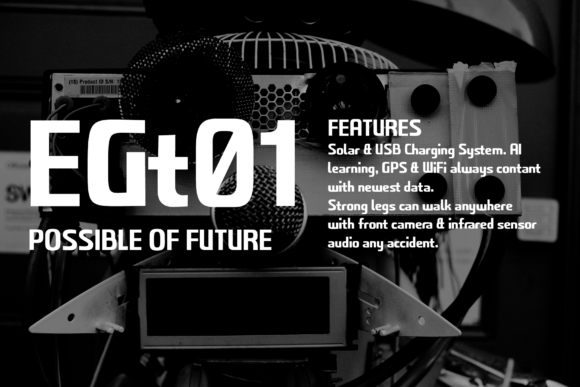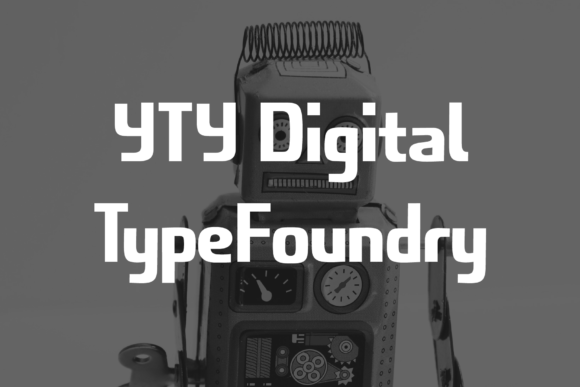
Introducing Erkn Font: A Modern Sans Serif for Diverse Design Needs
In the vast world of typography, finding the perfect font that balances style, versatility, and functionality can be a daunting task. For designers and crafters looking for a typeface that can seamlessly blend into various design projects, Erkn Font emerges as an excellent choice. This article delves into the characteristics, benefits, and potential applications of Erkn Font, highlighting why it has become a go-to for creatives.
What is Erkn Font?
Erkn is a rounded and mechanical sans serif font, designed to cater to a wide range of design needs. Its geometric style not only gives it a modern look but also ensures it can complement both classical and techno themes. This versatility makes Erkn an ideal selection for designers who work on diverse projects, from branding and advertising to digital media and crafting.
Key Features of Erkn Font
- Comprehensive Language Support: Erkn offers support for all characters of the European languages. This extensive language support ensures that designers can use Erkn for projects targeting various linguistic audiences without worrying about character limitations.
- Standard Punctuation and Diacritic Glyphs: The font includes standard punctuation and diacritic glyphs, making it fully equipped for creating professional and polished text content. Whether it’s for a website, a brochure, or a digital application, Erkn provides all the necessary typographic elements.
- OpenType Features: The font features OpenType capabilities, including ligatures and kerning. These features enhance the typographic quality of the text, providing better readability and aesthetic appeal. Ligatures offer a sophisticated way to handle character combinations, while kerning ensures optimal spacing between characters.
Design Applications of Erkn Font
The geometric style of Erkn Font lends itself to a variety of design applications. Its rounded and mechanical sans serif characteristics make it suitable for:
- Branding and Logo Design: The modern and clean look of Erkn makes it an excellent choice for branding and logo design. It can help create a strong and memorable visual identity for businesses and products.
- Digital Media: For websites, apps, and digital platforms, Erkn’s legibility and contemporary style make it an ideal font. It ensures a great user experience across various digital devices.
- Print Media: In print, Erkn can be used for brochures, posters, and magazines, offering a fresh and appealing look. Its versatility means it can suit both traditional and modern design themes.
- Crafting and DIY Projects: For crafters, Erkn can add a professional touch to handmade products, such as labels, cards, and DIY publications. Its easy-to-read style ensures that messages are conveyed clearly.
Why Choose Erkn Font?
Choosing Erkn Font for your design projects comes with several advantages:
- Versatility: Its geometric and sans serif nature makes it adaptable to various design themes and applications.
- Readability: The rounded characters enhance readability, making it suitable for both digital and print media.
- Professionalism: With its comprehensive feature set, including language support and typographic elements, Erkn lends a professional touch to any project.
| Font Name | Erkn Font |
| Author | YTY Digital TypeFoundry |
Erkn Font stands out as a versatile and functional typeface, designed to meet the diverse needs of designers and crafters. Its rounded and mechanical sans serif style, combined with extensive language support and compatibility with major design tools, makes it an excellent addition to any creative toolkit. Whether you’re working on a branding project, a digital application, or a crafting endeavor, Erkn Font offers the perfect blend of style, functionality, and professionalism.